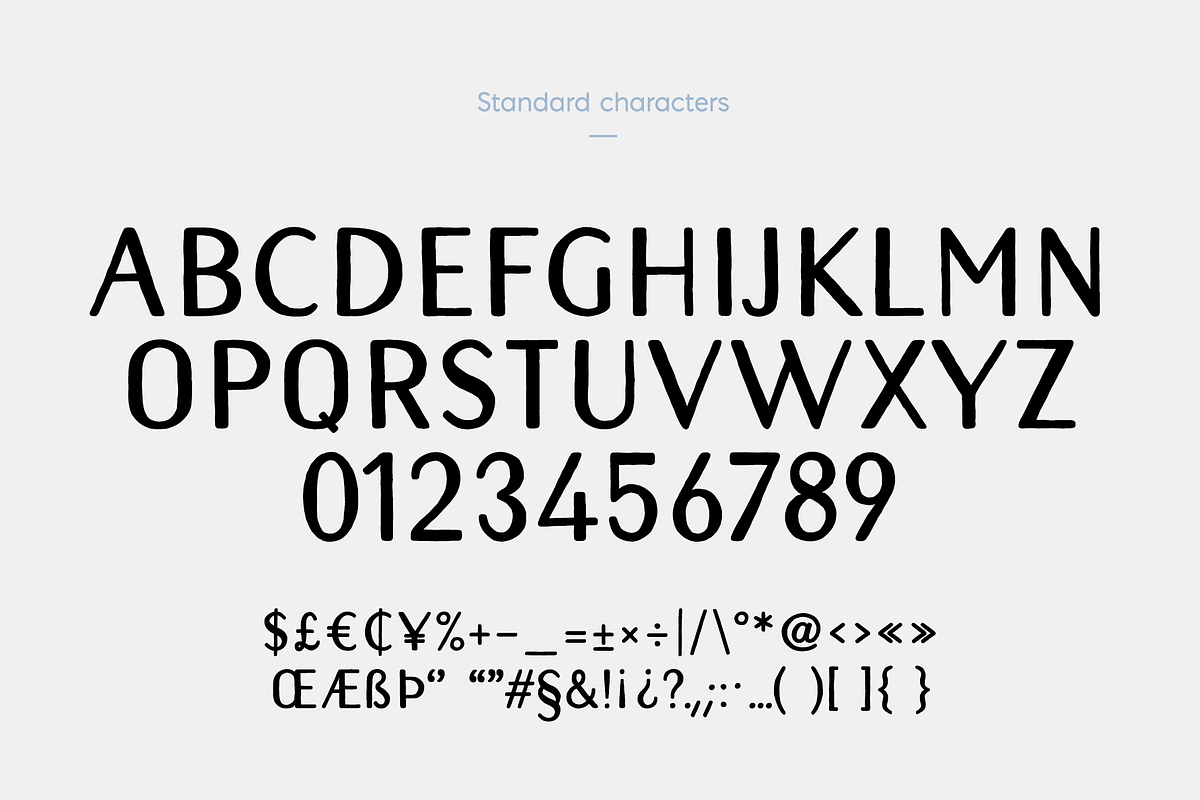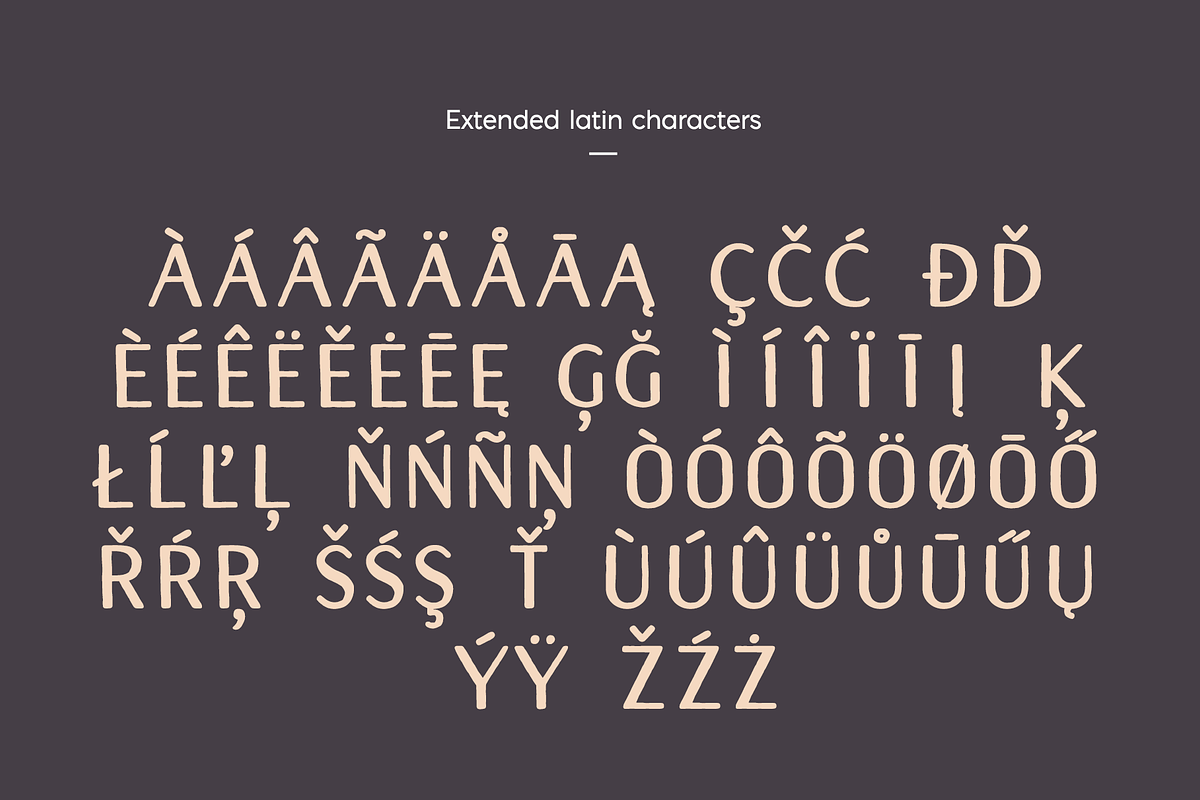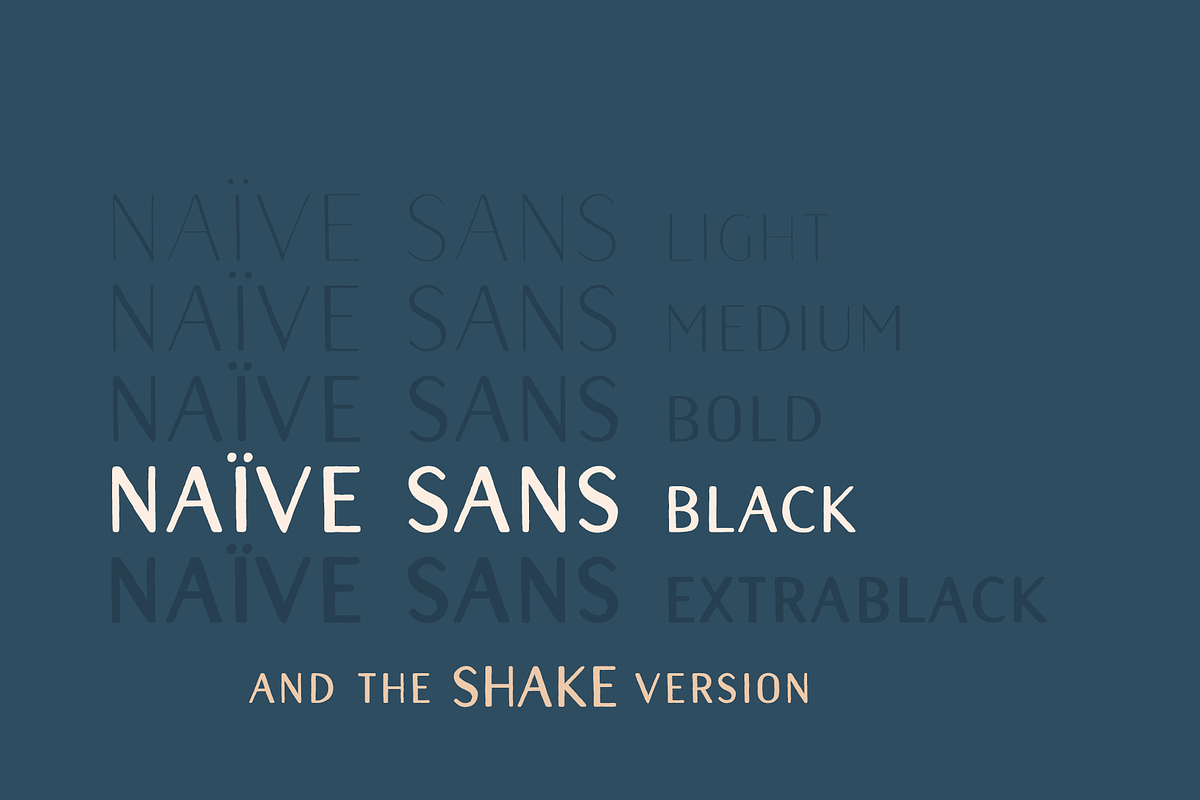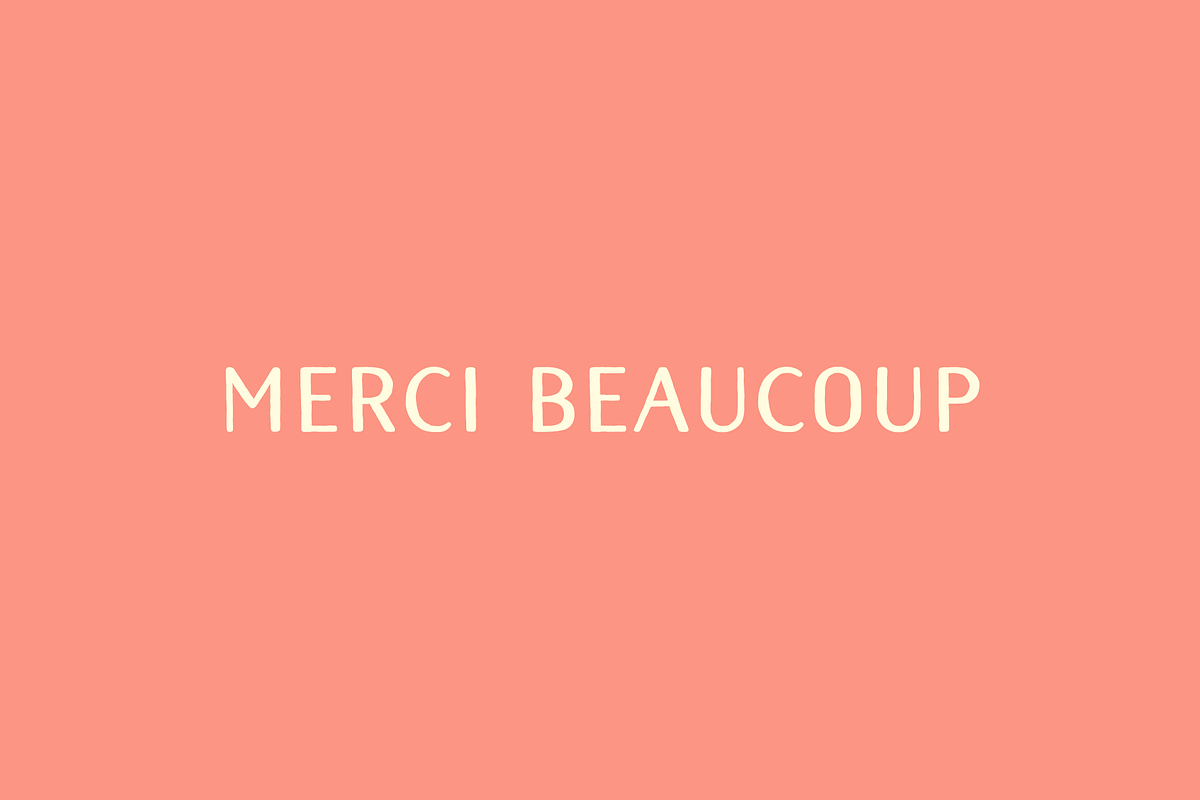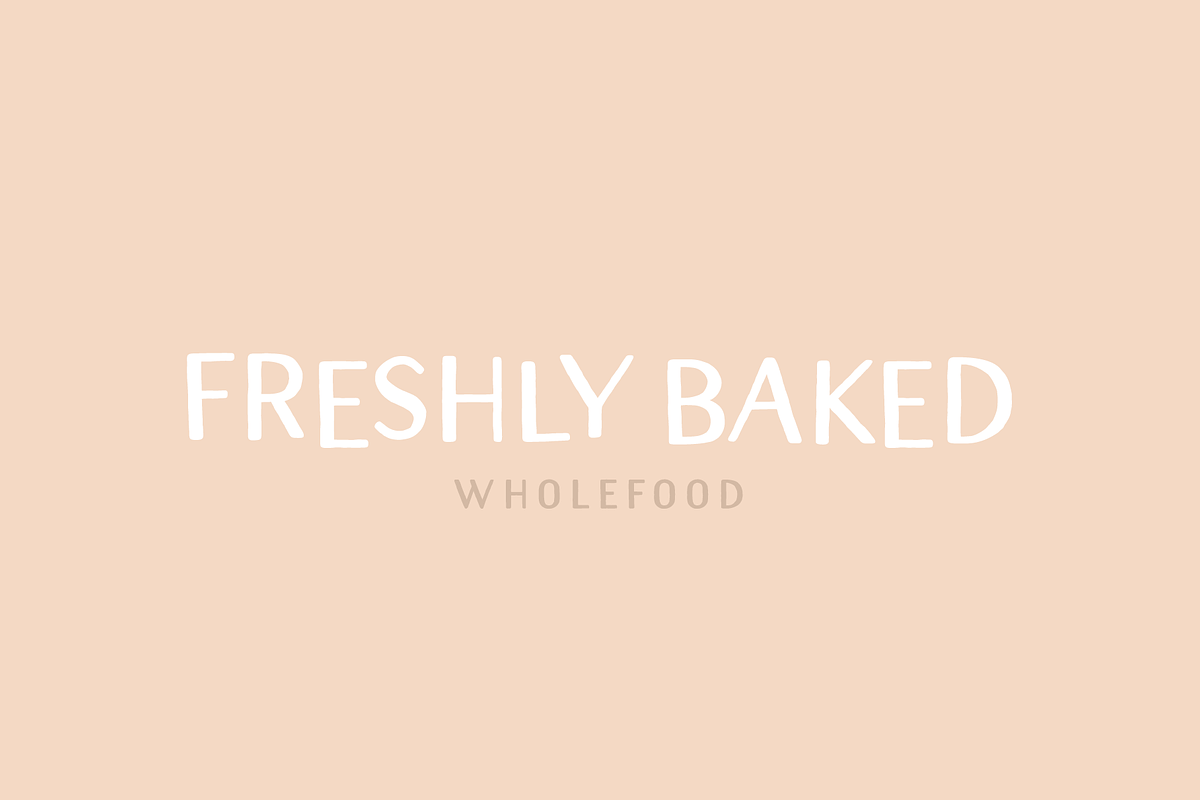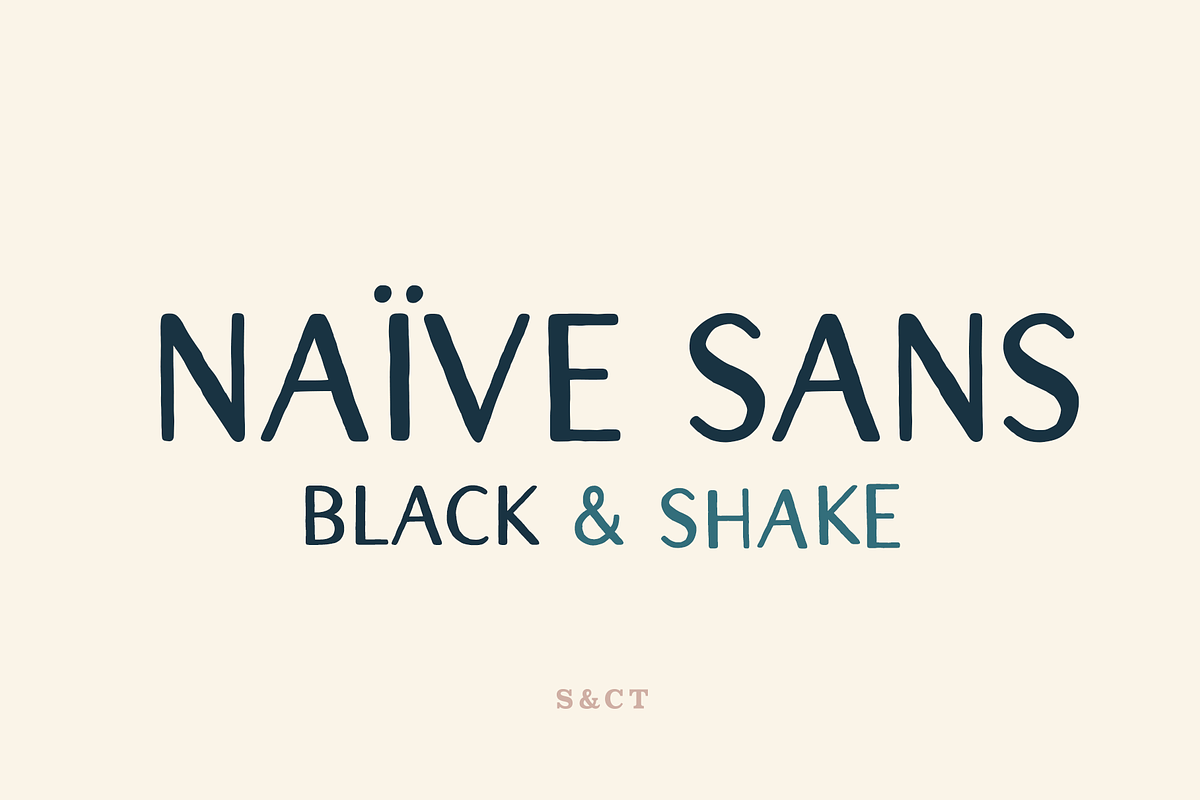
Naive Sans Black & Shake
Naïve Sans Black is a serif handwritten font designed by Fanny Coulez and Julien Saurin in Paris. Our goal was to draw a font with finely irregular lines that give a human and organic feeling for various purposes, such as headings, logos, posters, wedding invitations...
This font is part of our Naïve superfamily that contains lot of variations: Line, Inline, Serif, Sans Serif, and a special Art Deco one. Just click on our foundry name to see them all!